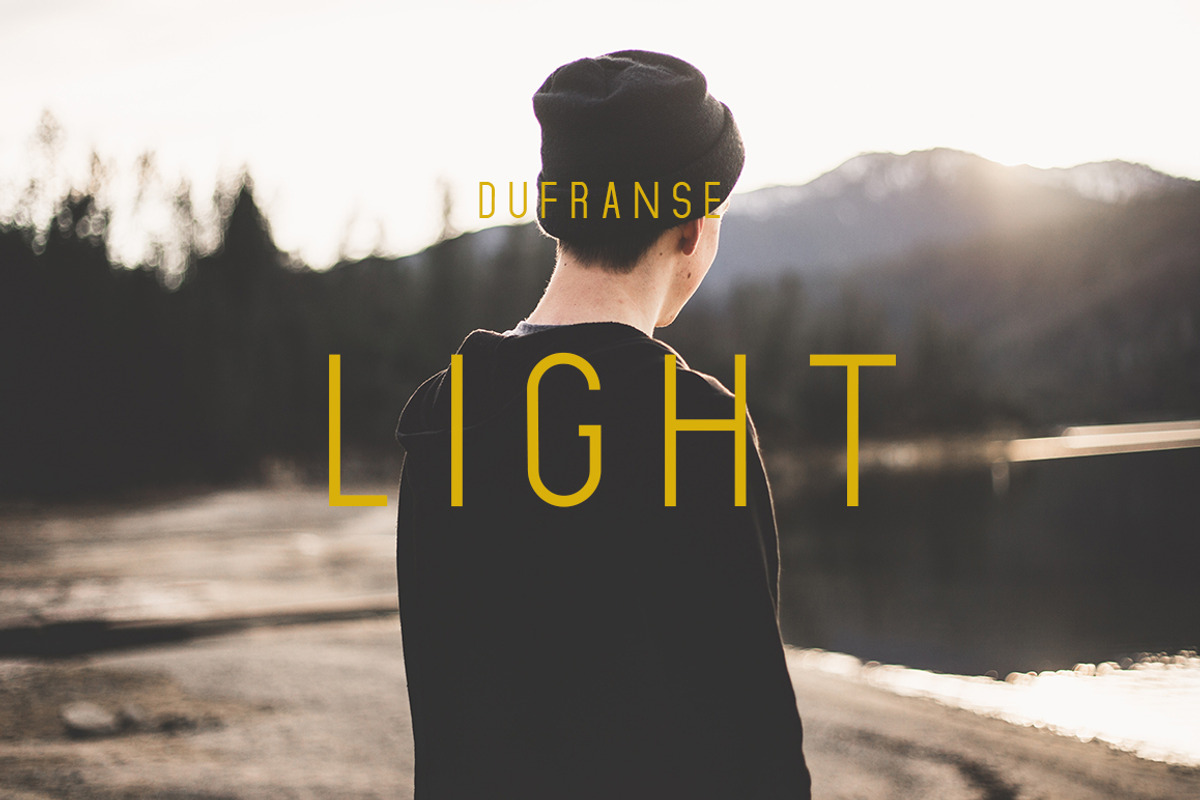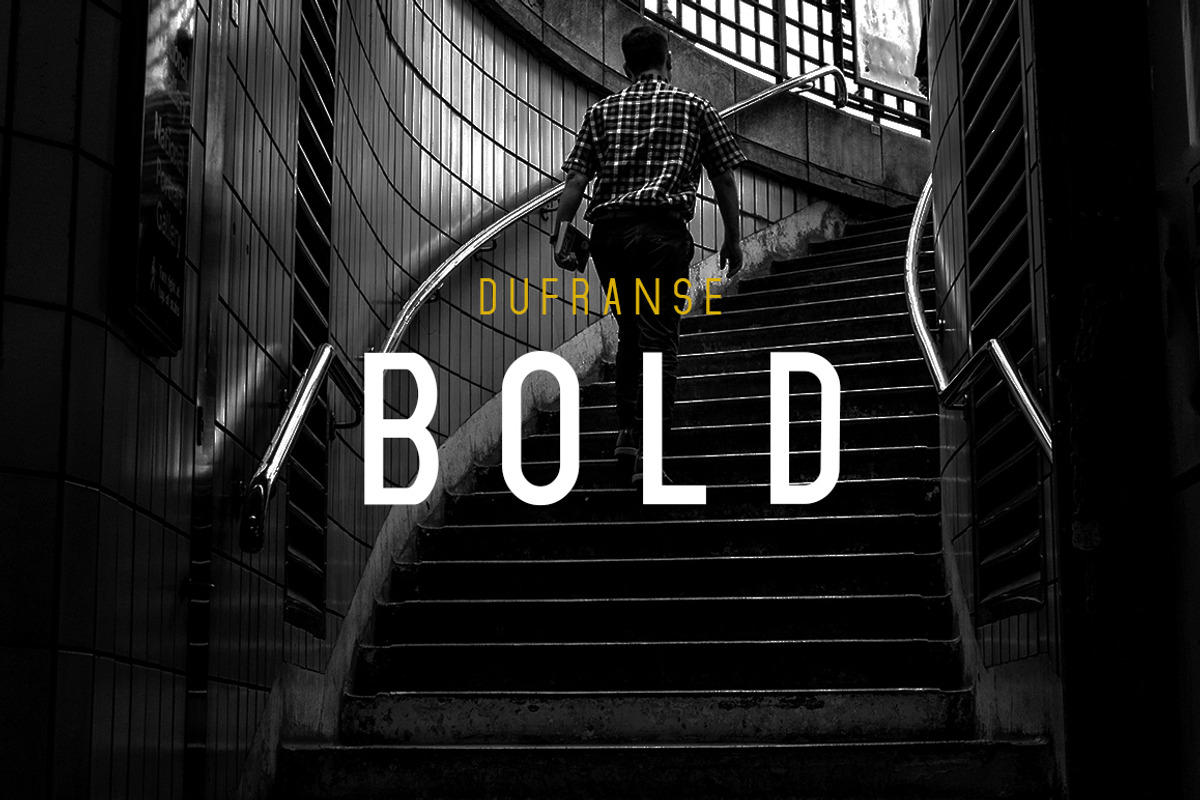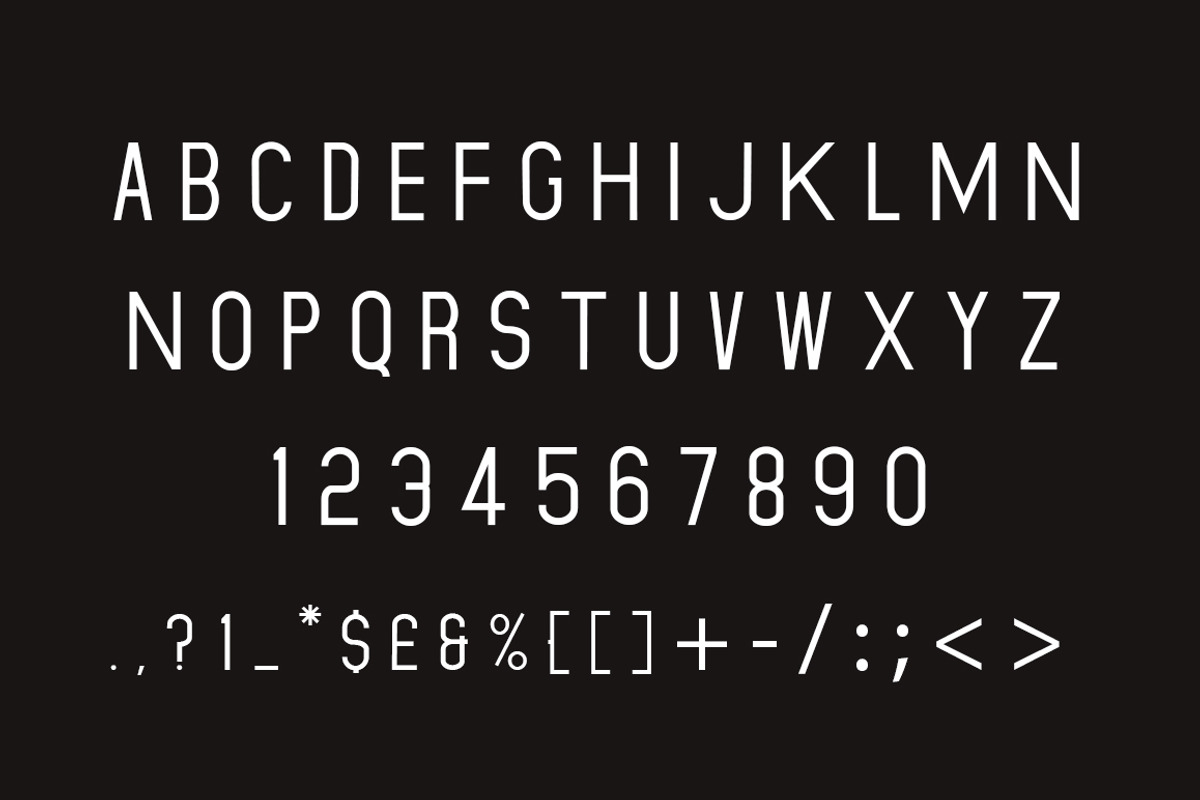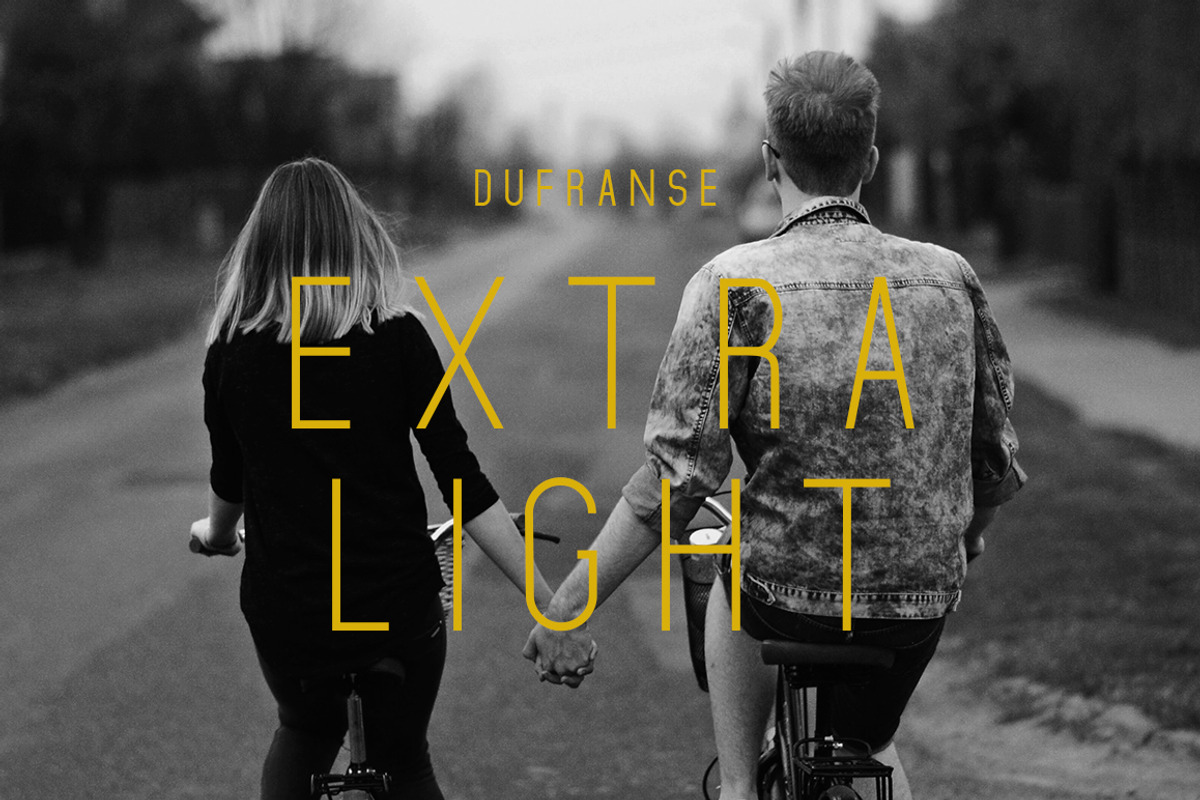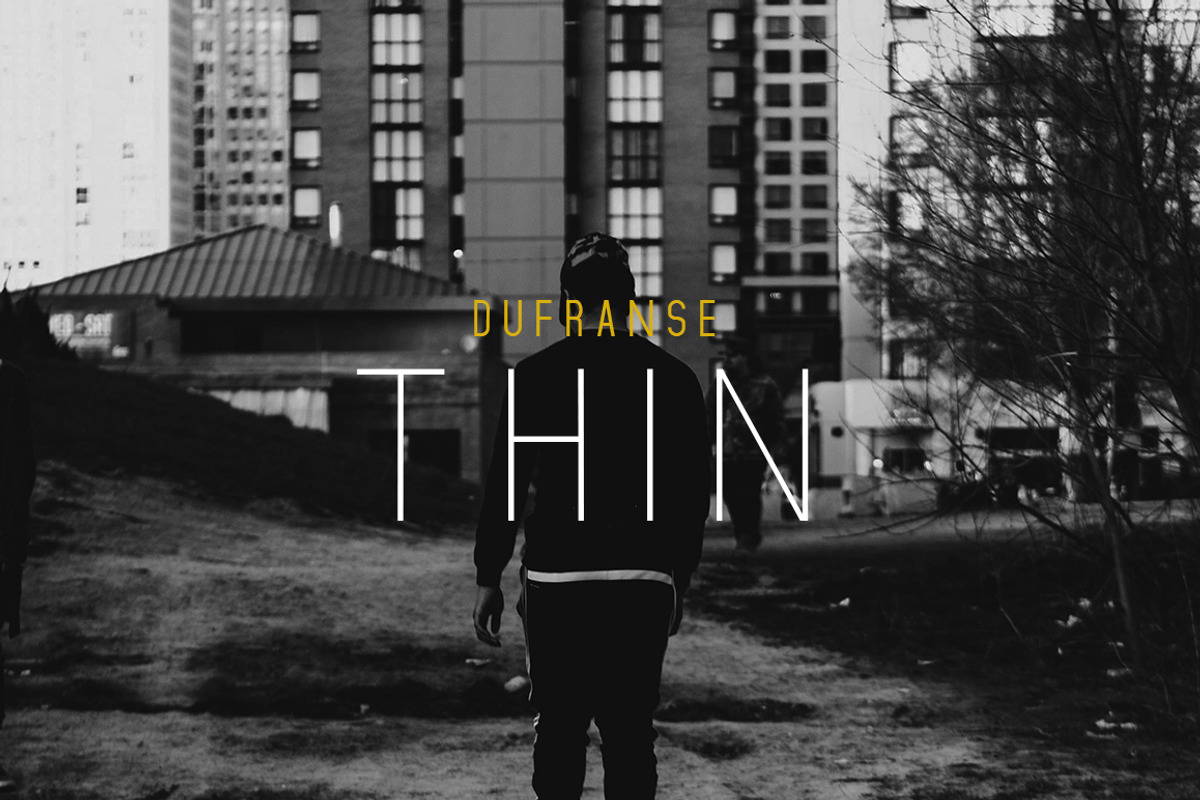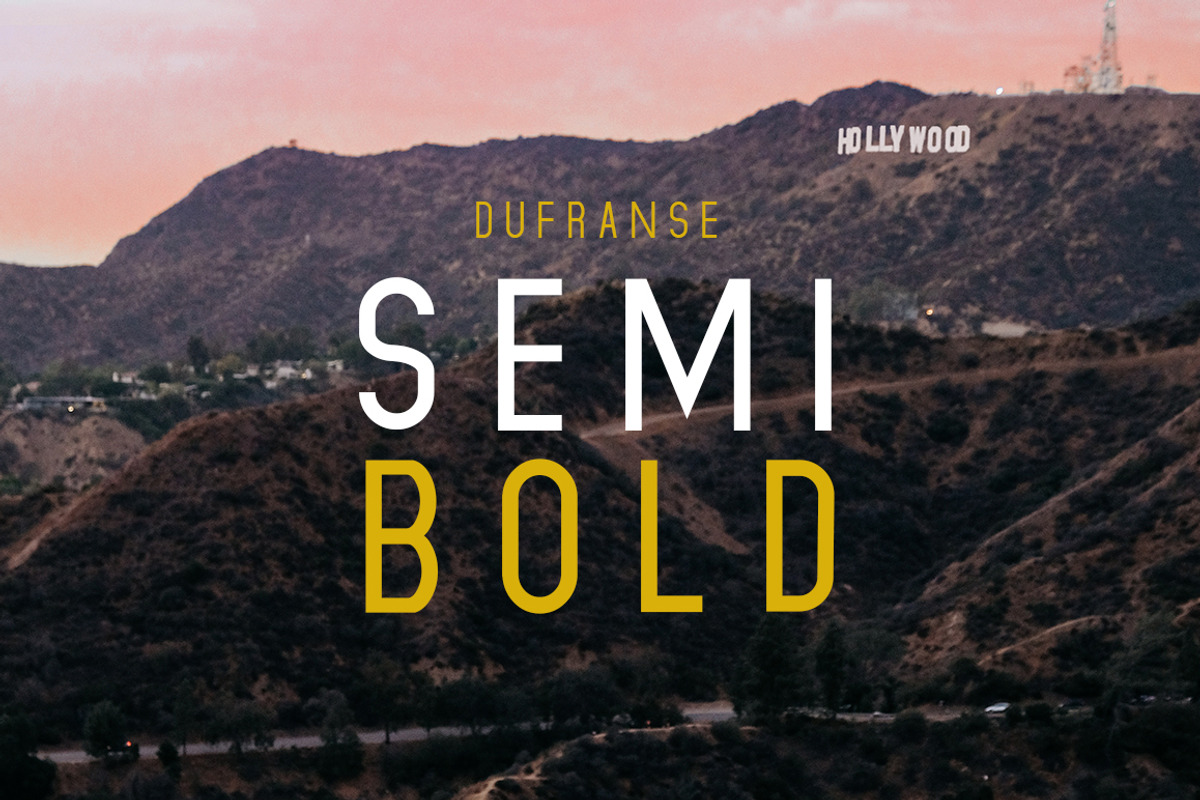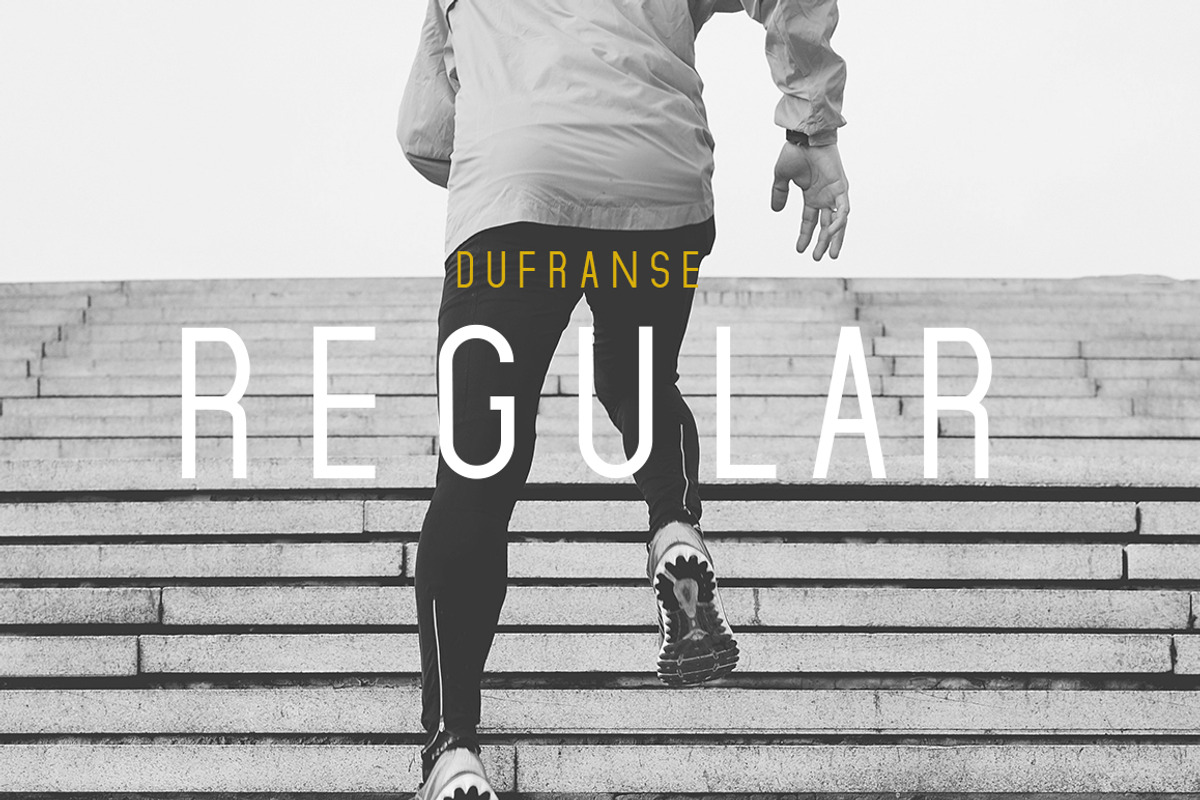
Dufranse | A Youthful Font Family
Create Standout, Urban, Hipster Designs with the Dufranse Font Family.
Dufranse is a youthful sans-serif that immediately adds a hipster vibe to your branding. It contains a cool Regular font along with Thin, Extra Light, Light, Semi Bold, Bold, Ultra Bold, Black & Heavy so that all your design needs can be met!
Its tall axis with subtle rounded edges works well as a standalone font, or with a hand lettered script font. It has been designed with the urban city scape in mind so it is the perfect font family to make the most of branding for apparel, restaurants, street wear, sportswear, footwear, music and travel. As well as this, is it contemporary and versatile so works great for just about any project!
Dufranse is a huge font family including a grand total of 18 fonts (over 3000 individual glyphs). This includes Dufranse Regular, Light, Extra Light, Thin, Semi Bold, Bold, Ultra Bold, Black & Heavy & Italic.
18 striking fonts, adding all the versatility and style you need
Optimized kerning for aesthetic and highly readable texts
If you want to set the trend and not follow it, Dufranse is the Font Family for you!